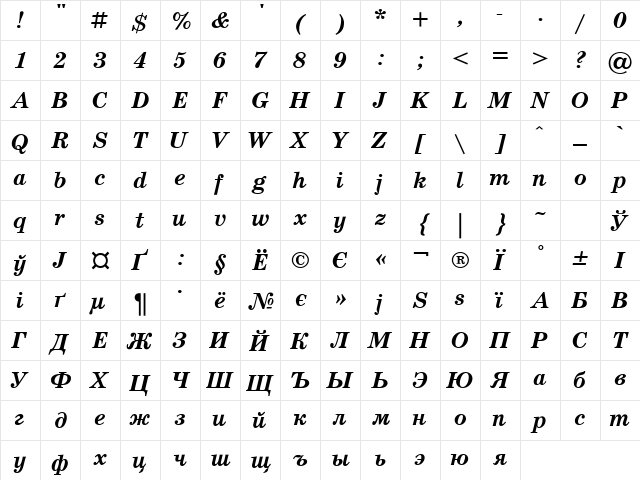
SchoolBookC Bold Italic
Design Context for SchoolBookC Typeface
SchoolBookC takes a measured approach to typography — its balanced proportions and neutral character make it a reliable workhorse for both digital and print work. The dynamic lean of this cut emphasises speed and emphasis in any layout. The heavy weight commands attention and anchors typographic hierarchies.